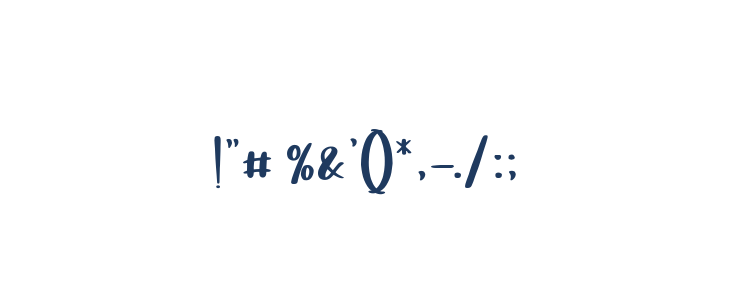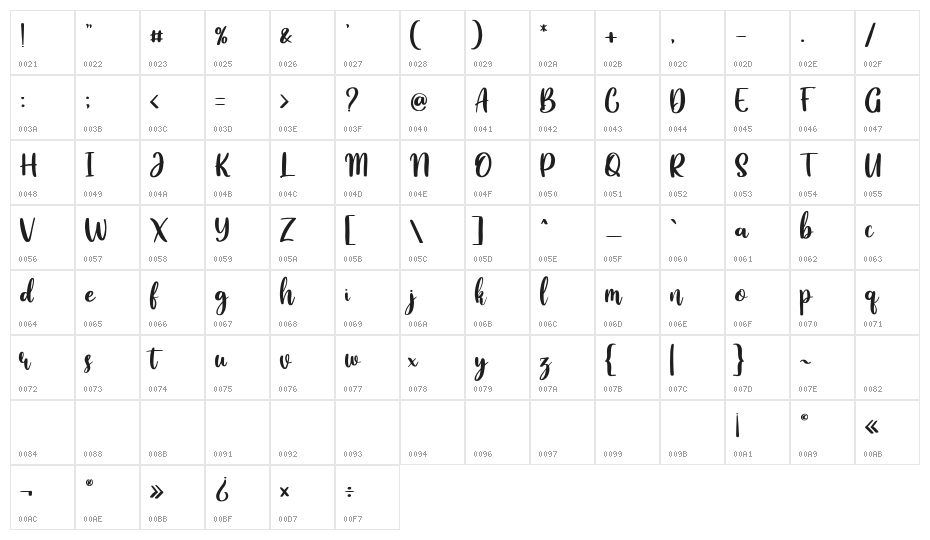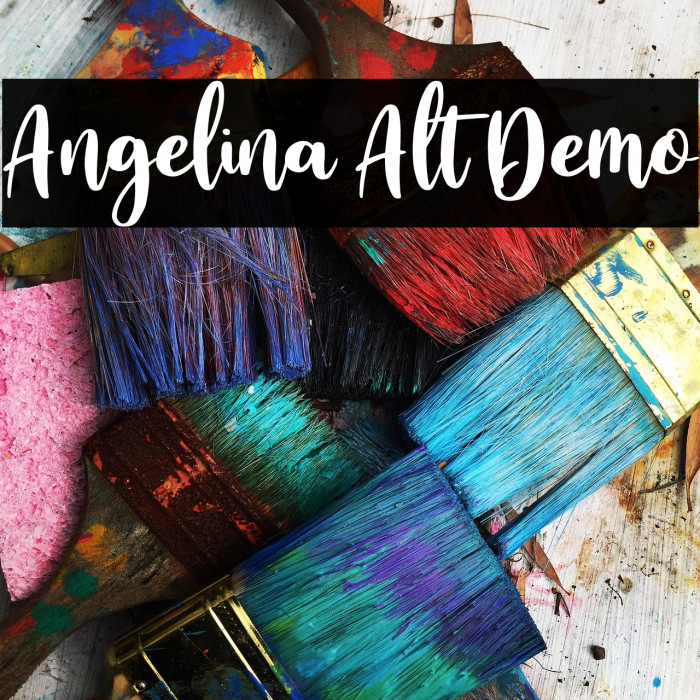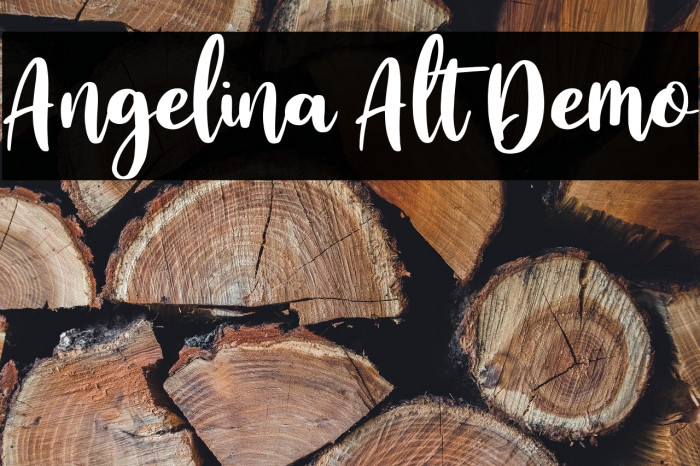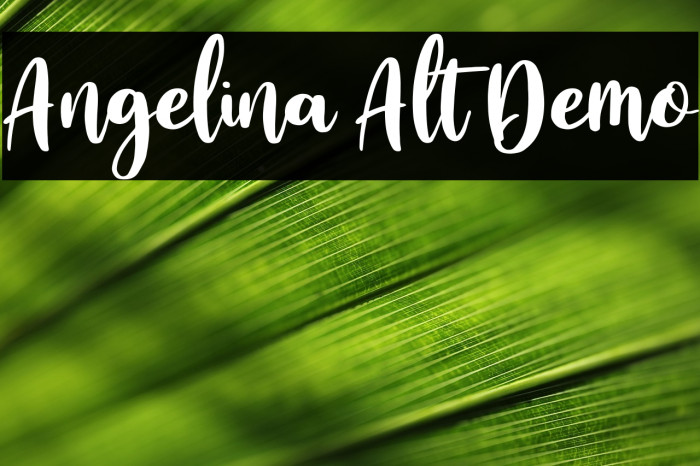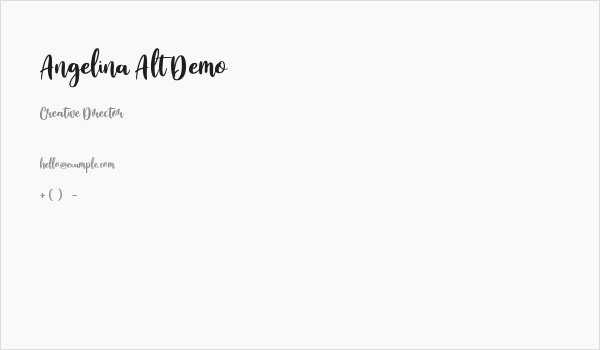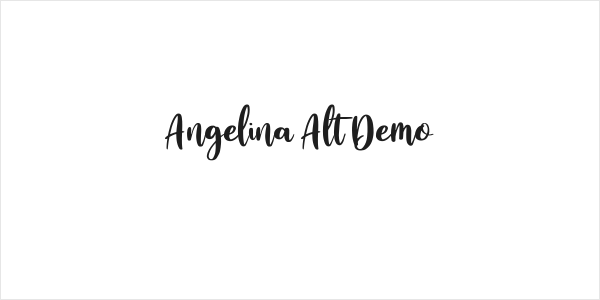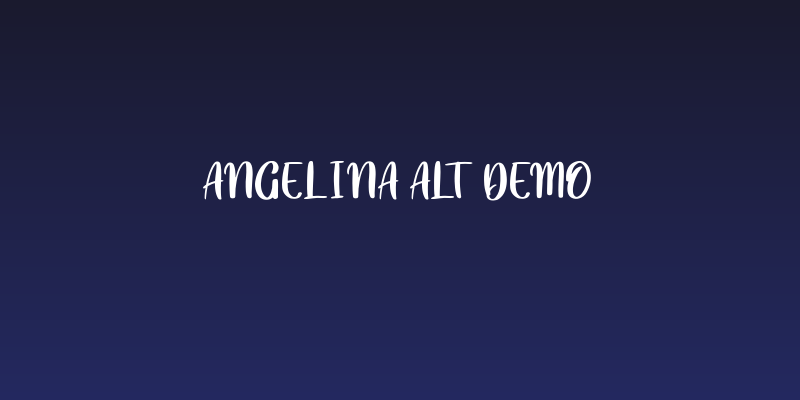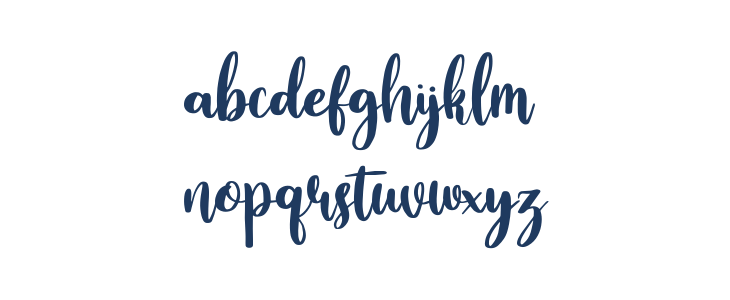
Angelina Alt Demo Font
Angelina Alt Demo Description
This font features a bold and flowing script style, characterized by its smooth, cursive strokes and elegant, handwritten appearance. The uppercase letters are tall and slightly slanted, with a playful yet sophisticated flair. The lowercase letters maintain a consistent flow, enhancing the font's overall fluidity. The numerals and special characters are crafted with the same attention to detail, ensuring a cohesive look across all characters. This font's unique style makes it stand out, offering a blend of modern and classic script elements.